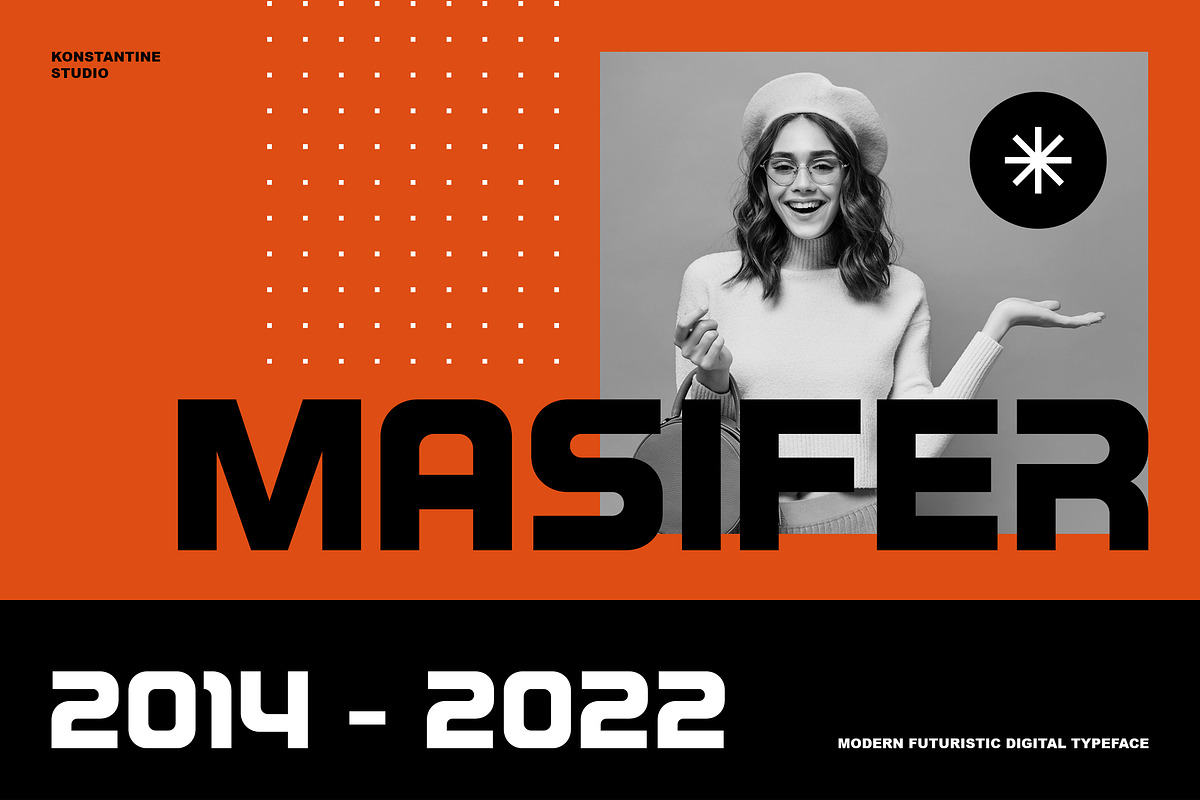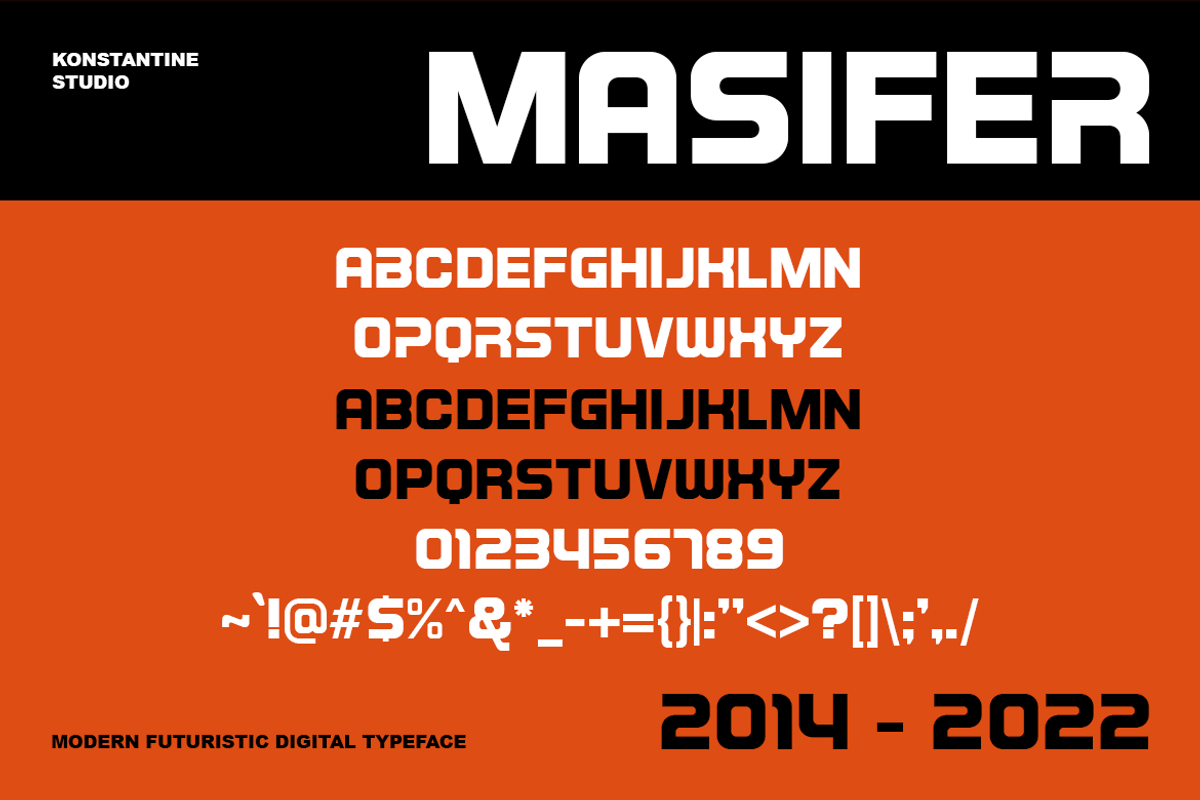
Masifer – Sporty Futuristic Fonts
Elevate your brand with MASIFER, the ultimate futuristic font blending tech-savvy style with a sporty edge. Ideal for esports logos, automotive branding, and fashion streetwear, MASIFER injects fast-paced vibes into any design. Perfect for those who dare to stand out!